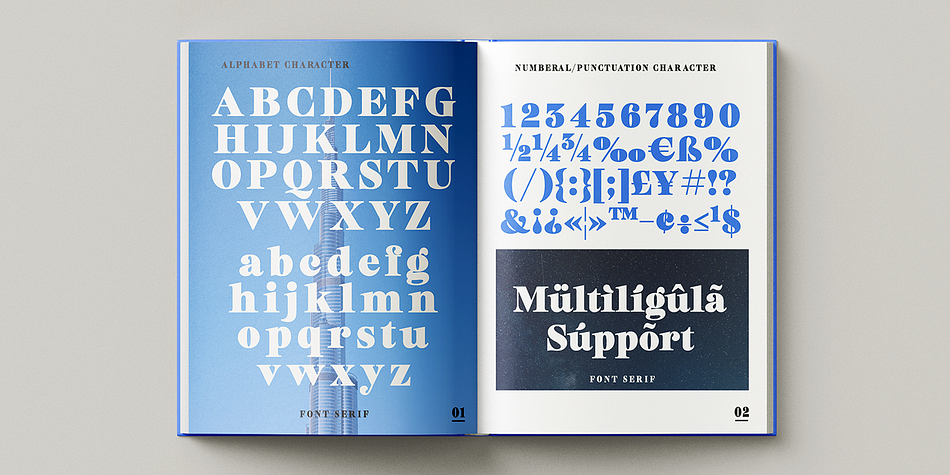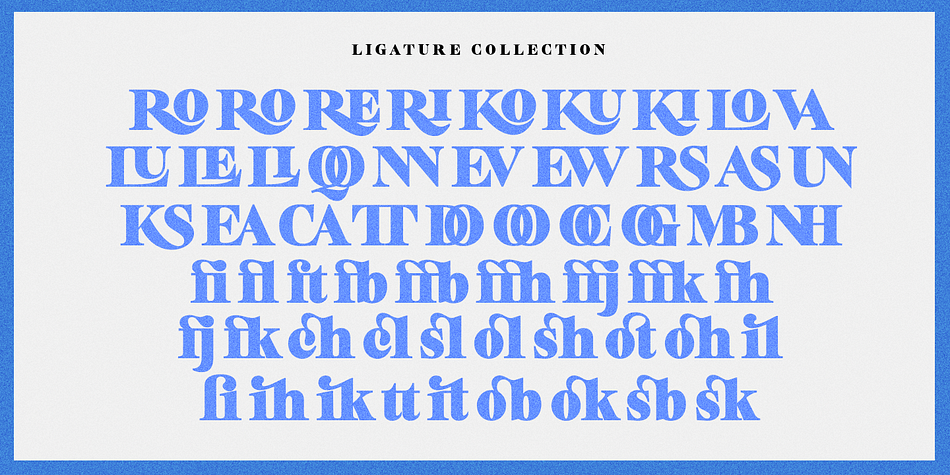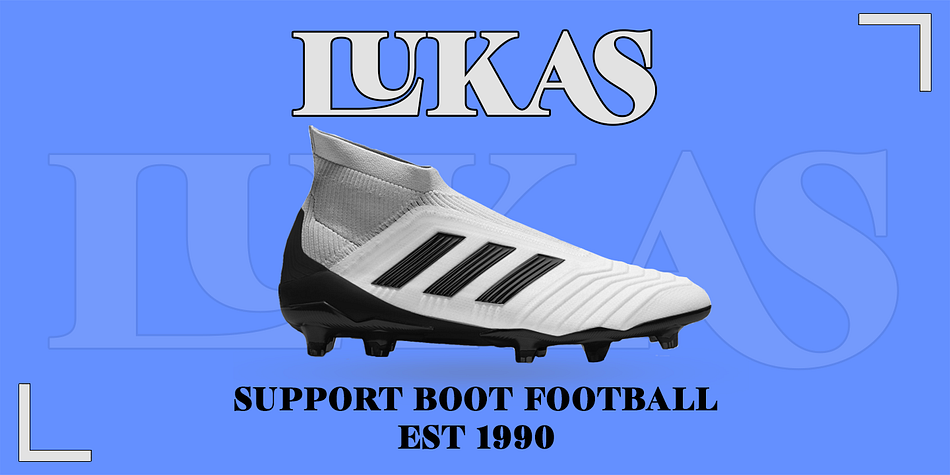
Avoliun
Avoliun is a serif font family published by Gatype.
Avoliun is a font with a modern and elegant style, featuring clean lines and sleek design. Its readable yet attractive characters make it suitable for various global design needs, such as logos, posters, and professional branding.